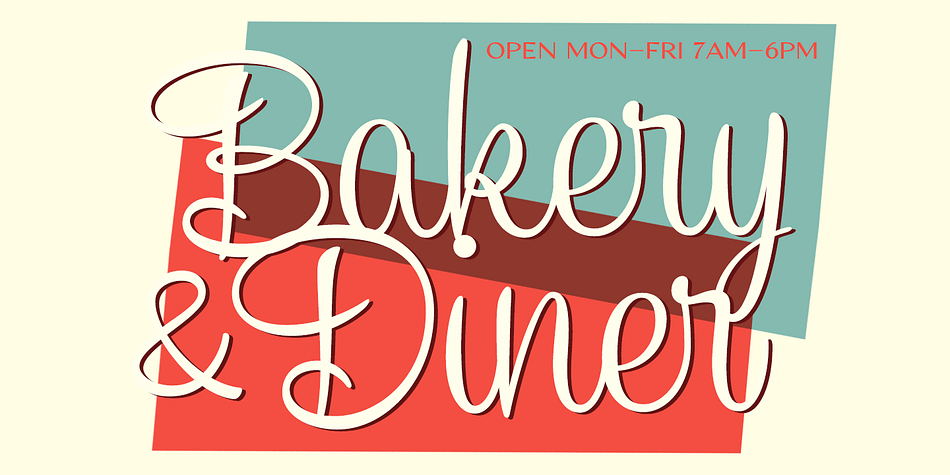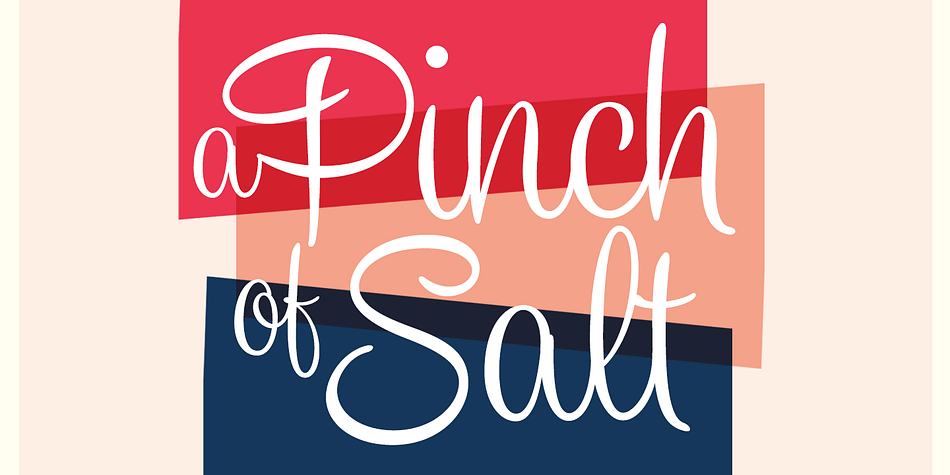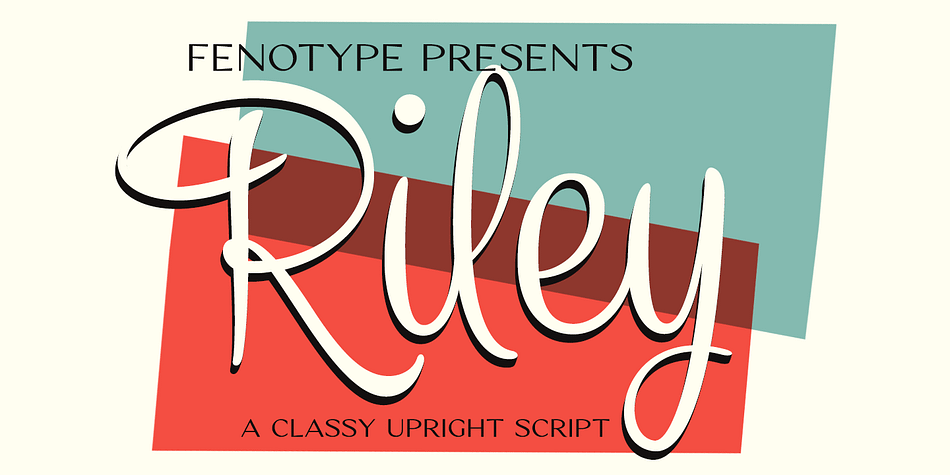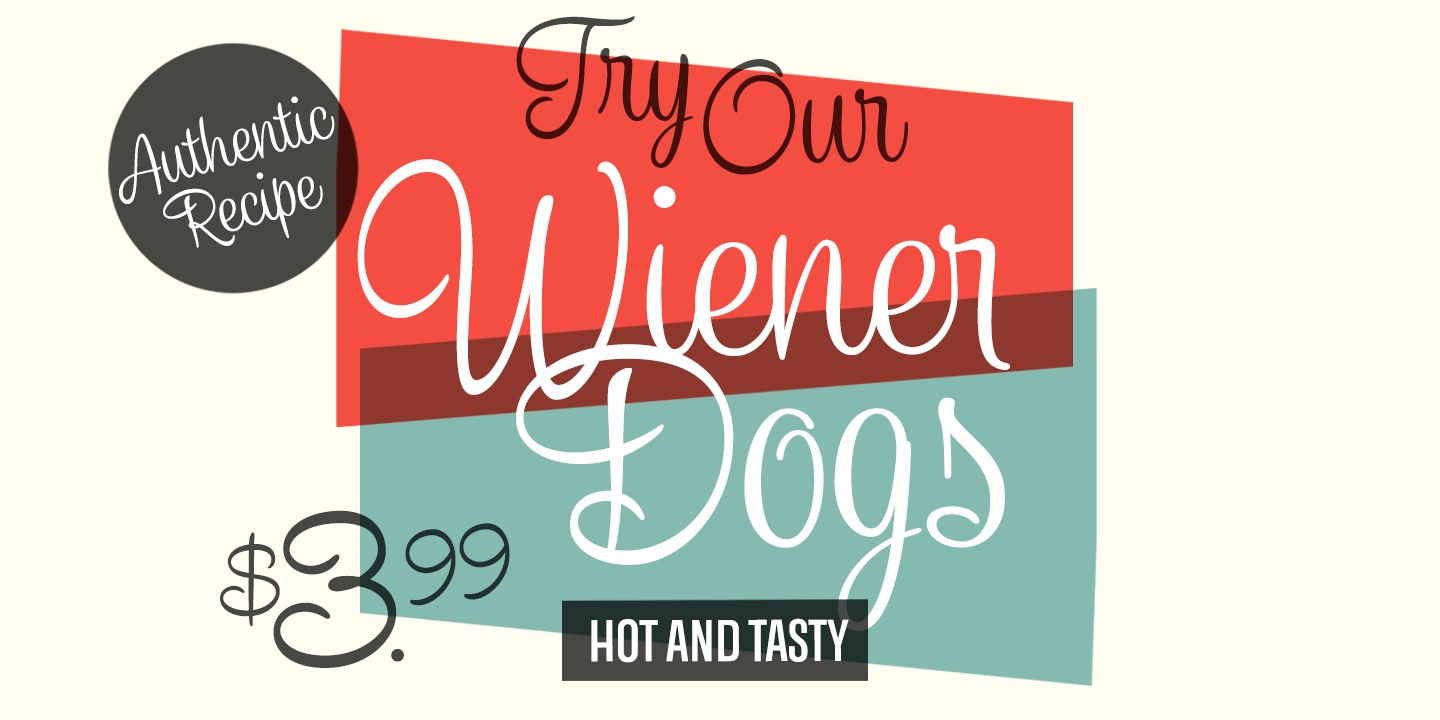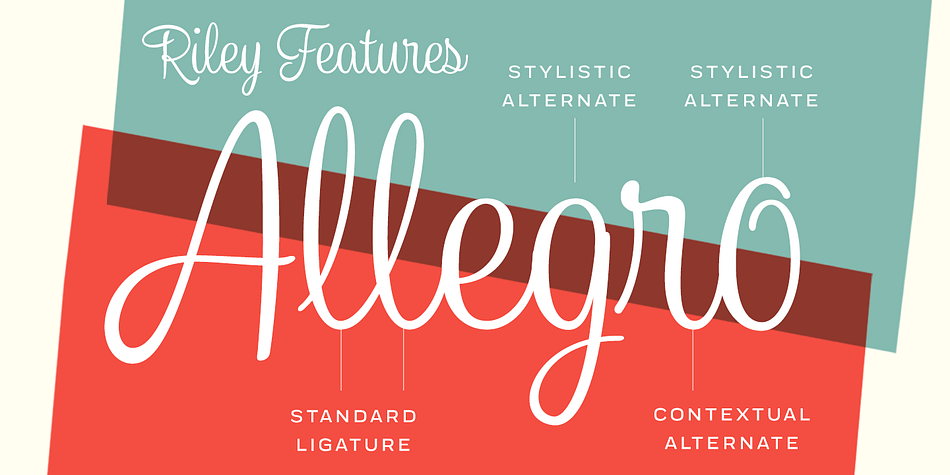
Designed by Emil Bertell, Riley is a brush script, retro and script font published by Fenotype.
Riley is an elegant brush Script with its roots in the 1950s American sign painting. Riley has Stylistic Alternates for every lowercase standard character and it’s equipped with Contextual Alternates and Ligatures that keep the flow and connections smooth. Riley is great for headlines and posters or as a logotype with an elegant touch.
Styles | Brush Script, Retro, Script |
Designer | Emil Karl Bertell |